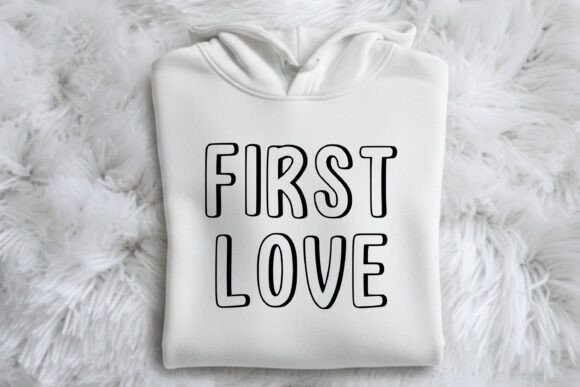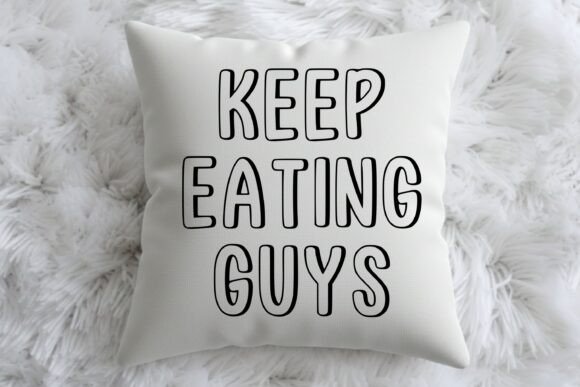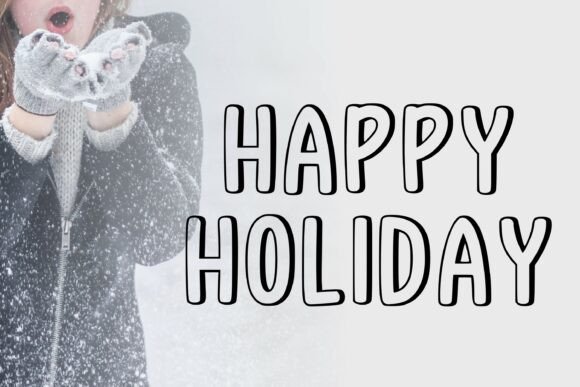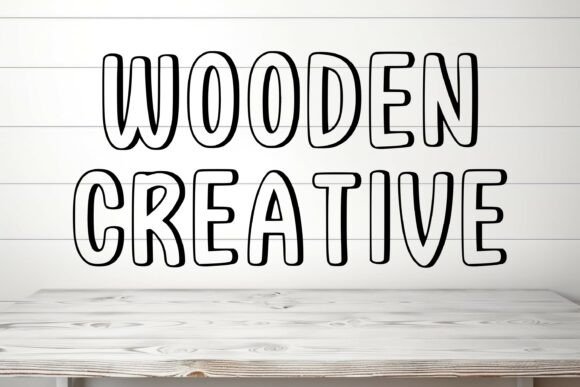
Introducing Fluffy Lovers Font: The Ultimate Choice for Playful and Whimsical Designs
Are you a designer or crafter looking for a font that can add a touch of softness and coziness to your projects? Look no further than Fluffy Lovers Font! This charming outline display font is specifically designed to bring a playful and whimsical feel to your designs, making it perfect for a wide range of applications.
Inspired by Fluffy Textures and Cute Aesthetics
Fluffy Lovers Font is inspired by the soft, fluffy textures and cute aesthetics that we all love. The font features rounded shapes and clean outlines that give it a unique and adorable charm. The simple yet effective design makes it easy to use in a variety of projects, from kids-themed designs to social media graphics.
Ideal for a Wide Range of Projects
So, what can you use Fluffy Lovers Font for? The possibilities are endless! Here are some ideas to get you started:
- Kids-themed designs: Create adorable posters, stickers, and activity sheets for kids with Fluffy Lovers Font.
- T-shirt prints: Add a playful touch to your t-shirt designs with this fun and quirky font.
- Stickers & sublimation: Use Fluffy Lovers Font to create cute and colorful stickers and sublimation designs.
- Social media graphics: Add a touch of whimsy to your social media graphics, such as Instagram posts and Facebook headers.
- Branding & packaging: Use Fluffy Lovers Font to create unique and eye-catching branding and packaging designs.
- Posters and quotes: Create inspiring posters and quotes with a playful and uplifting feel.
Why Choose Fluffy Lovers Font?
So, why should you choose Fluffy Lovers Font for your next project? Here are just a few reasons:
- Unique and adorable design: Fluffy Lovers Font has a one-of-a-kind design that will make your projects stand out.
- Easy to use: The font is simple to use and can be easily combined with other fonts or used as a standalone headline.
- Versatile: Fluffy Lovers Font can be used in a wide range of projects, from digital designs to print materials.
- Playful and whimsical feel: This font is perfect for designers and crafters who want to add a touch of playfulness and whimsy to their projects.
Tips for Using Fluffy Lovers Font
Here are a few tips for using Fluffy Lovers Font in your projects:
- Experiment with different colors: Fluffy Lovers Font looks great in a variety of colors, so don’t be afraid to experiment and find the perfect hue for your project.
- Combine with other fonts: This font pairs well with other fonts, so try combining it with a bold font for a fun and playful look.
- Use it sparingly: While Fluffy Lovers Font is adorable, it can be overwhelming if used too much. Use it sparingly to create a focal point in your design.
Fluffy Lovers Font is a charming outline display font that is perfect for designers and crafters who want to add a touch of softness and coziness to their projects. With its unique and adorable design, versatility, and playful feel, this font is ideal for a wide range of applications. Whether you’re creating kids-themed designs, t-shirt prints, or social media graphics, Fluffy Lovers Font is the perfect choice. So why wait? Download Fluffy Lovers Font today and start creating your own whimsical and playful designs!